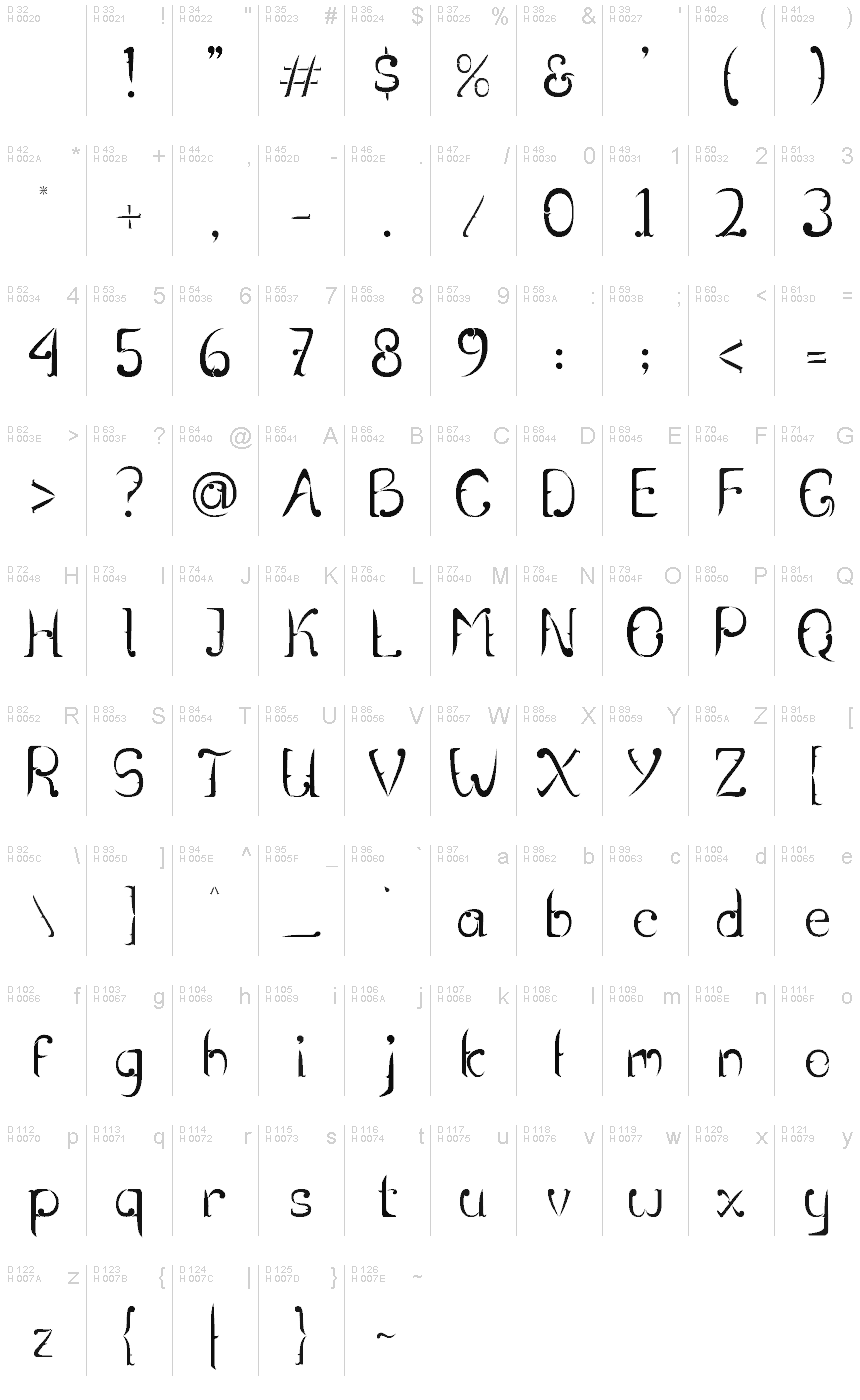
Inspired by Aceh's traditional weapon, Rencong. Aceh is a province in Indonesia. This is my own first-ever font so please give comments.
Rentjong Atjeh
Reiner Christlouvie Lomanto
Rentjong Atjeh Regular is a font by PYRS Fontlab Ltd. / Made with FontLab, designed by Reiner Christlouvie Lomanto in 2014.